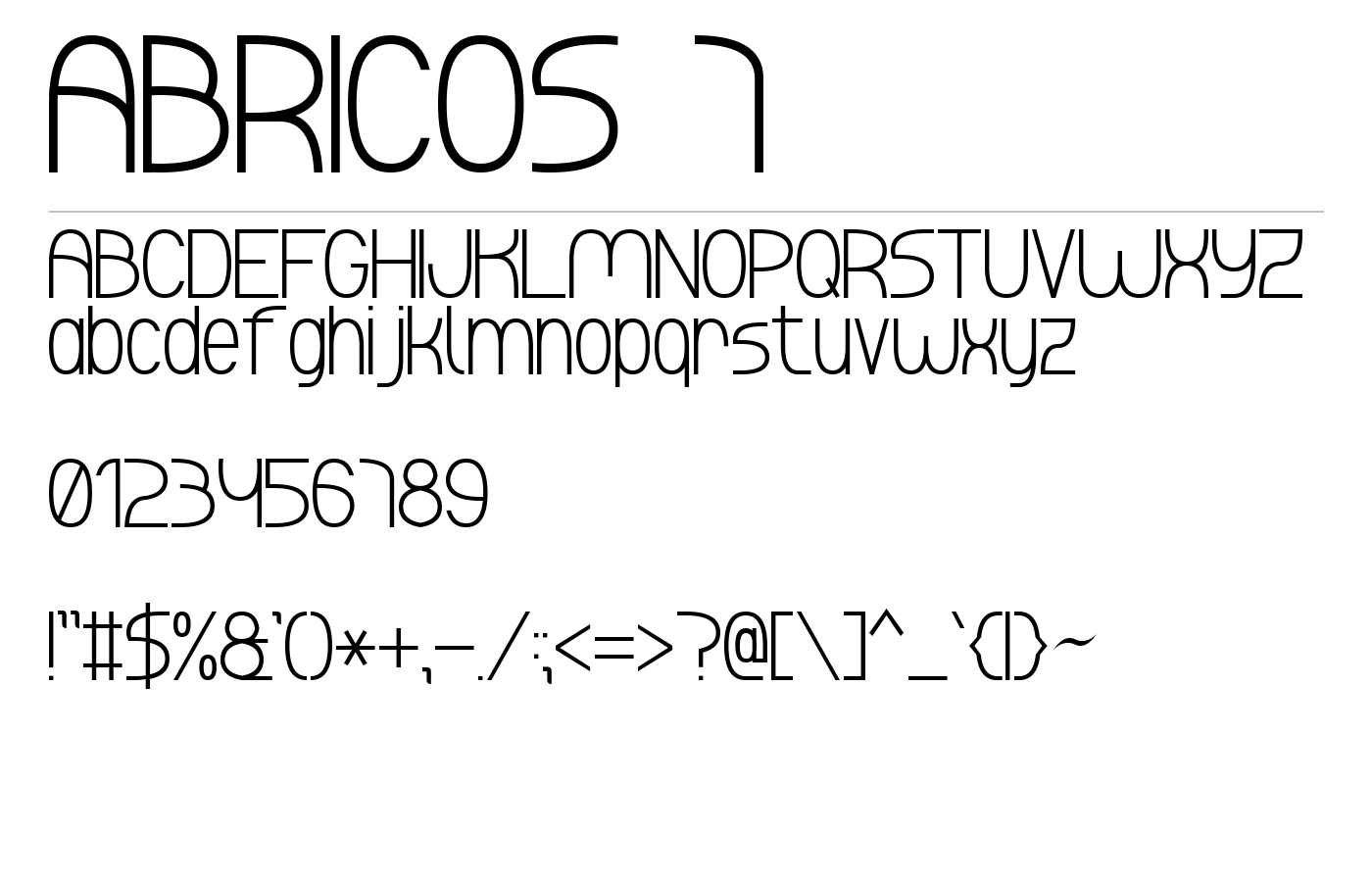
ABRICOS 7 is a modern, ultra-light sans serif font characterized by its narrow width and tall x-height, which gives it a sleek and elegant appearance. Its clean, geometric lines with minimal stroke contrast create a delicate yet contemporary feel, making it ideal for stylish branding, editorial headlines, and fashion-forward design projects that seek a refined but distinctive look. This font works best when used in larger sizes where its unique letterforms and airy spacing can truly shine.
| Font family | ABRICOS 7 Font |
| Designer | Sizenko Alexander |